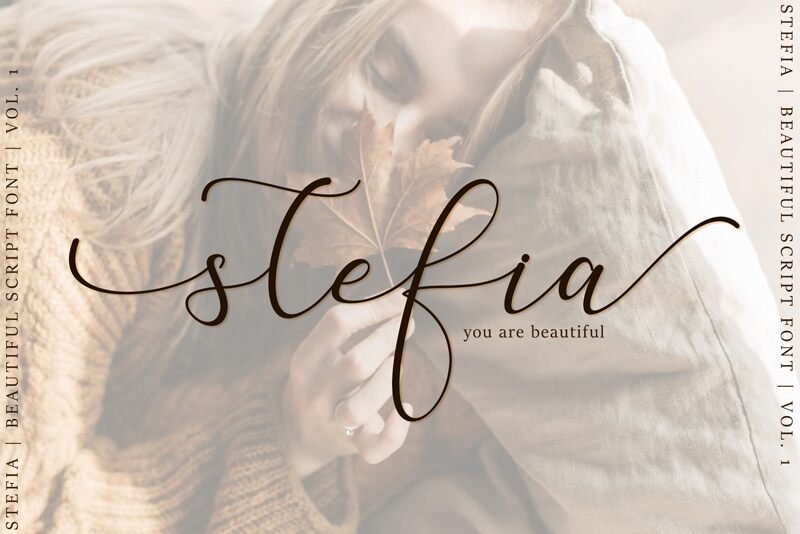
Stefia Stefia
Stefia, the gorgeous calligraphy font designed by Tiny Hand Letter, is perfect for adding an elegant touch to your projects. With its extra-light weight and graceful curves, it's perfect for invitations, wedding stationery, and any project that requires a refined aesthetic. The font's flowing lines make it ideal for creating beautiful logos or branding materials that exude sophistication and class. Whether you're designing a website or creating printed materials, Stefia's delicate strokes add an air of elegance that will make your work stand out from the crowd. Try out this stunning semi-bold typeface today and elevate your design game!